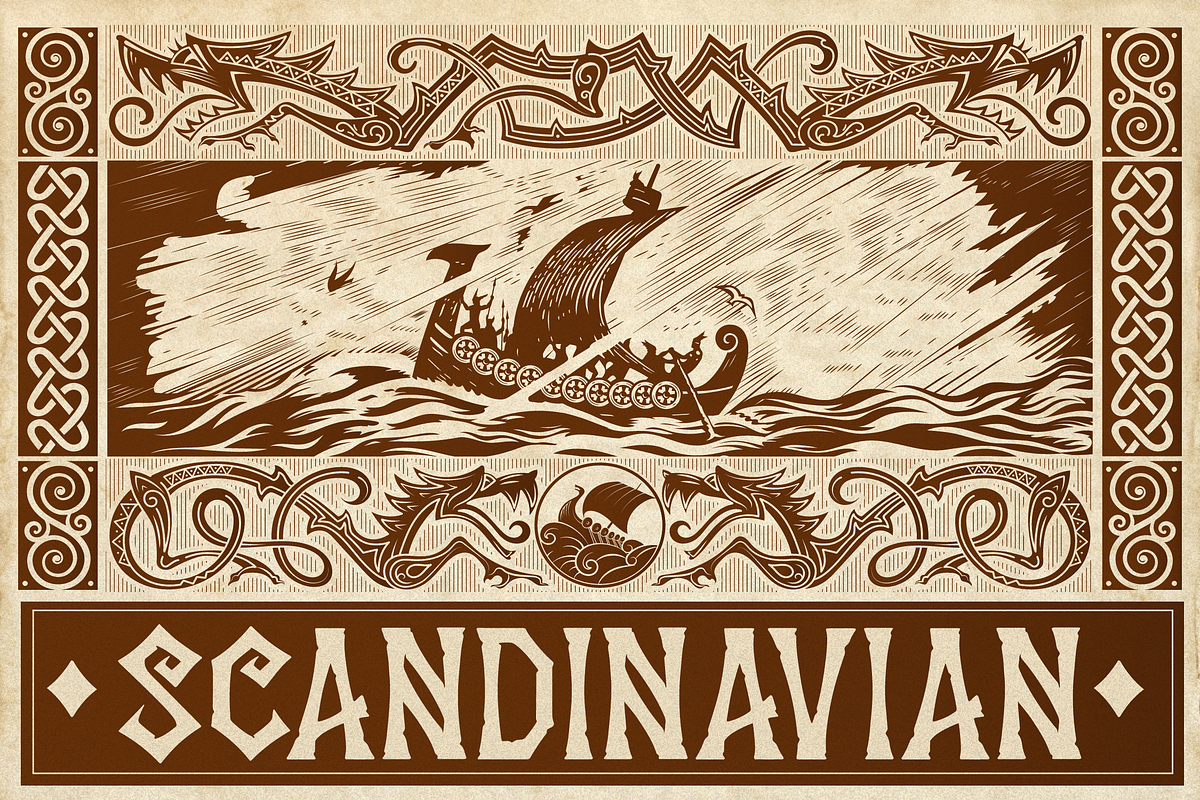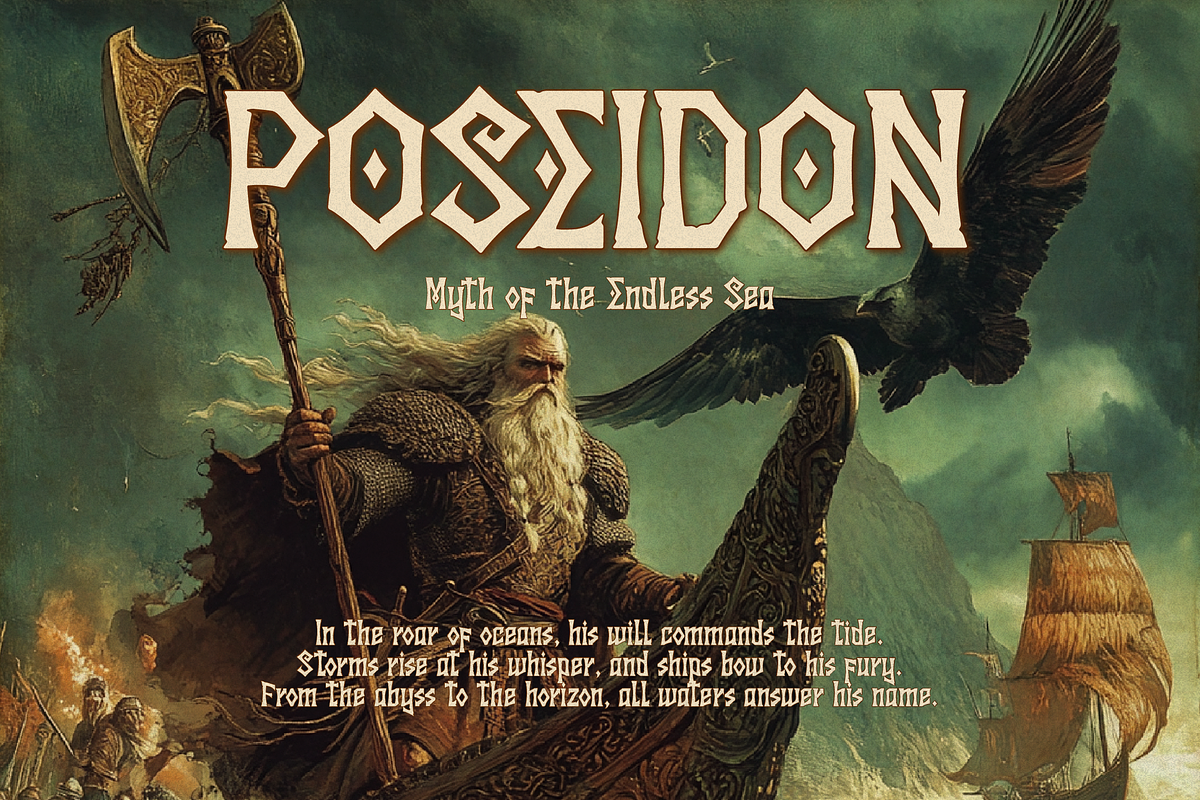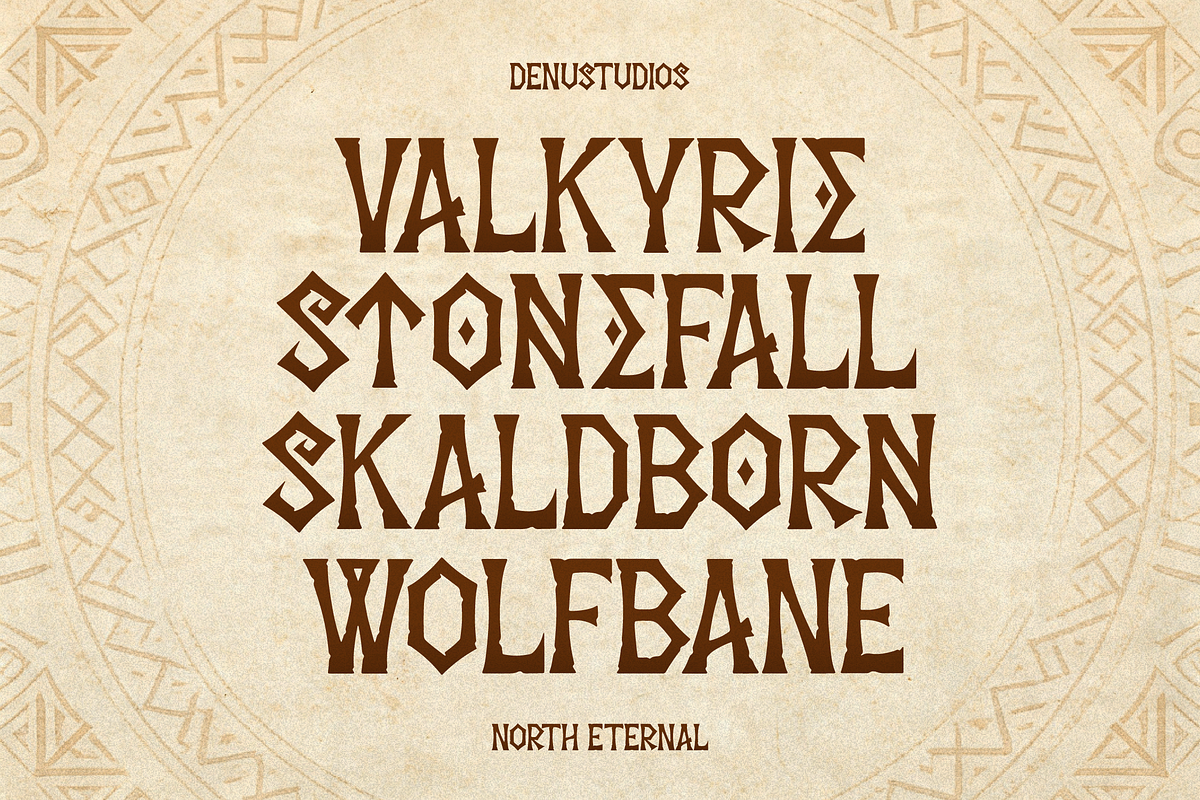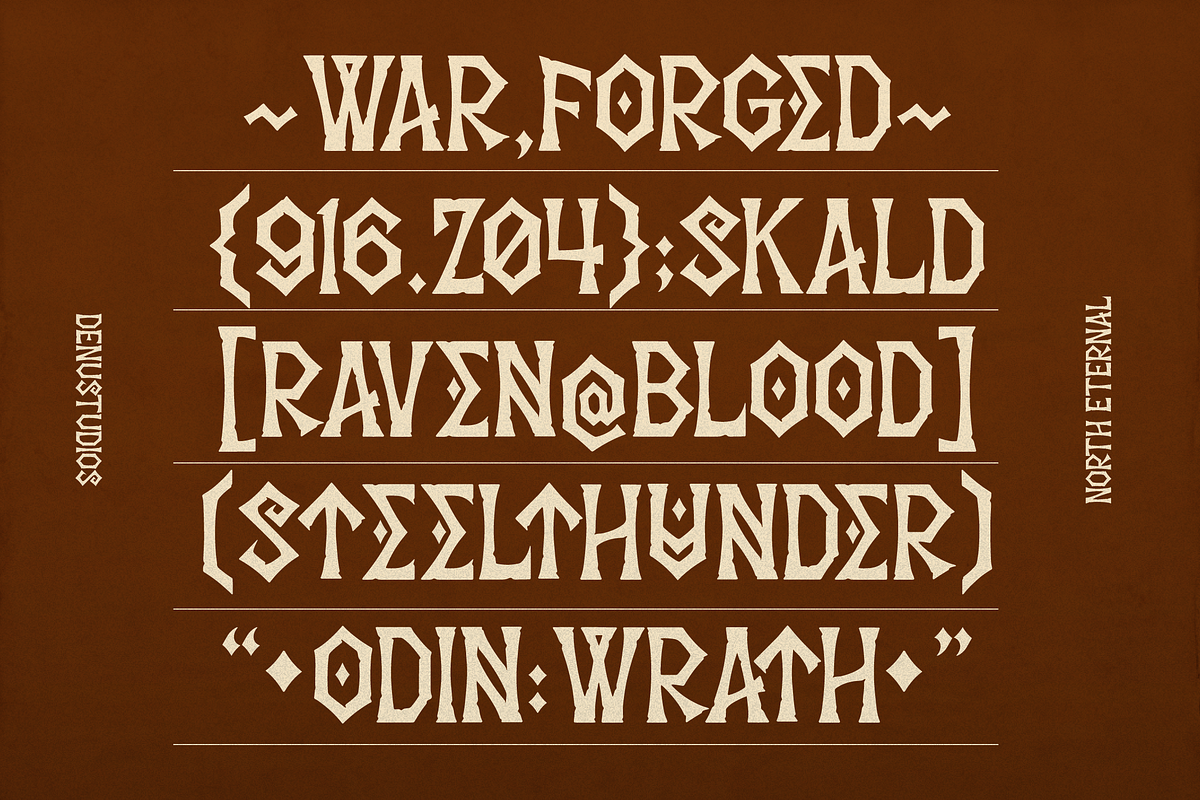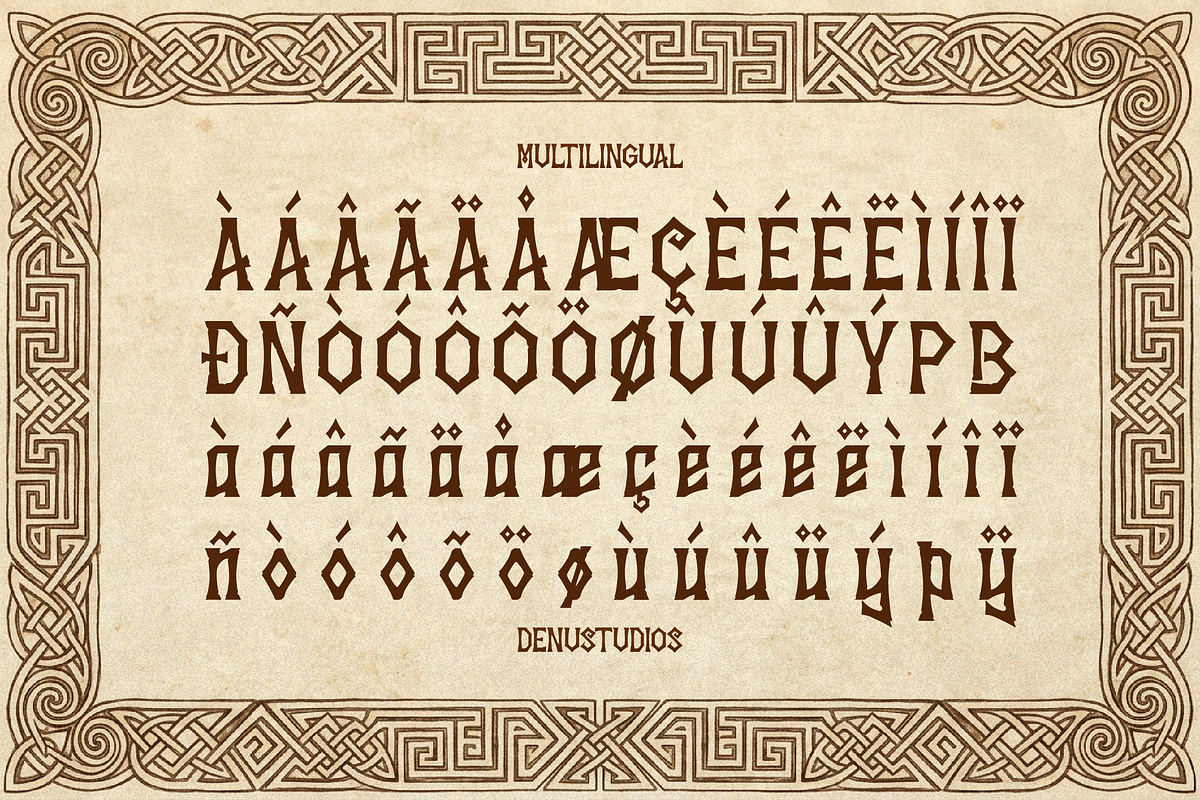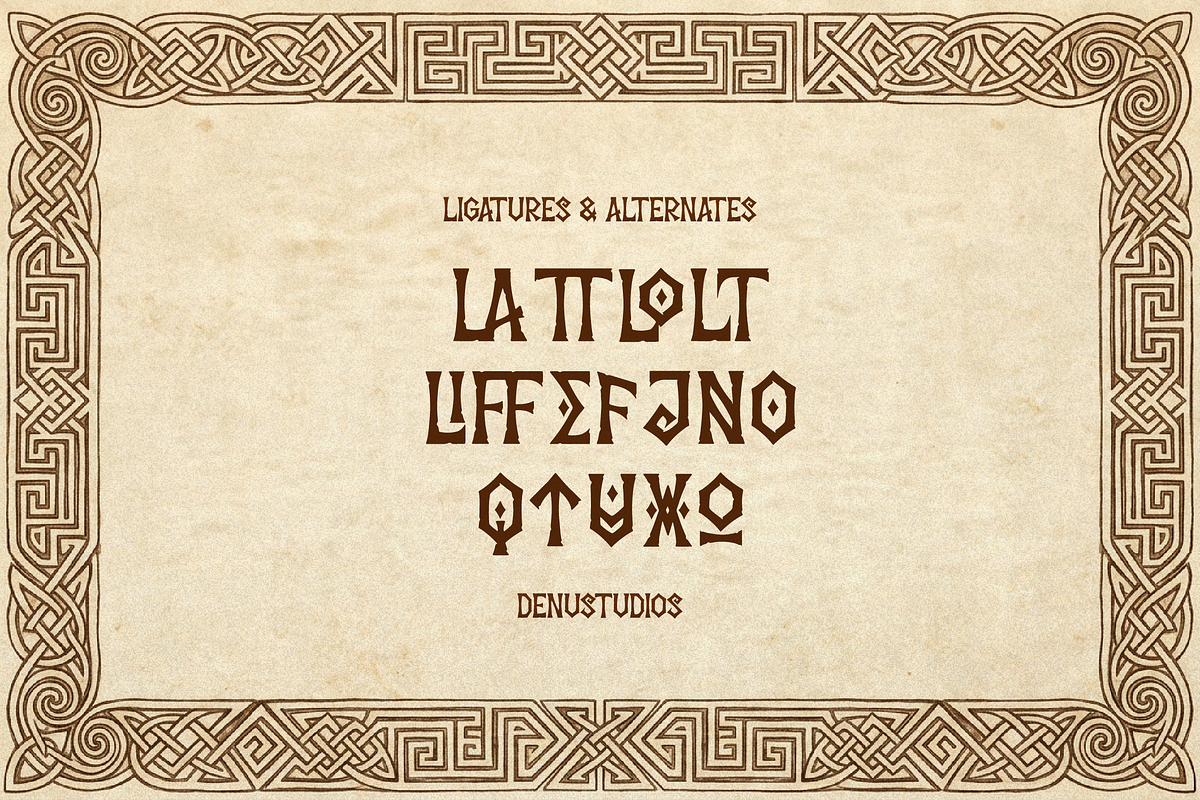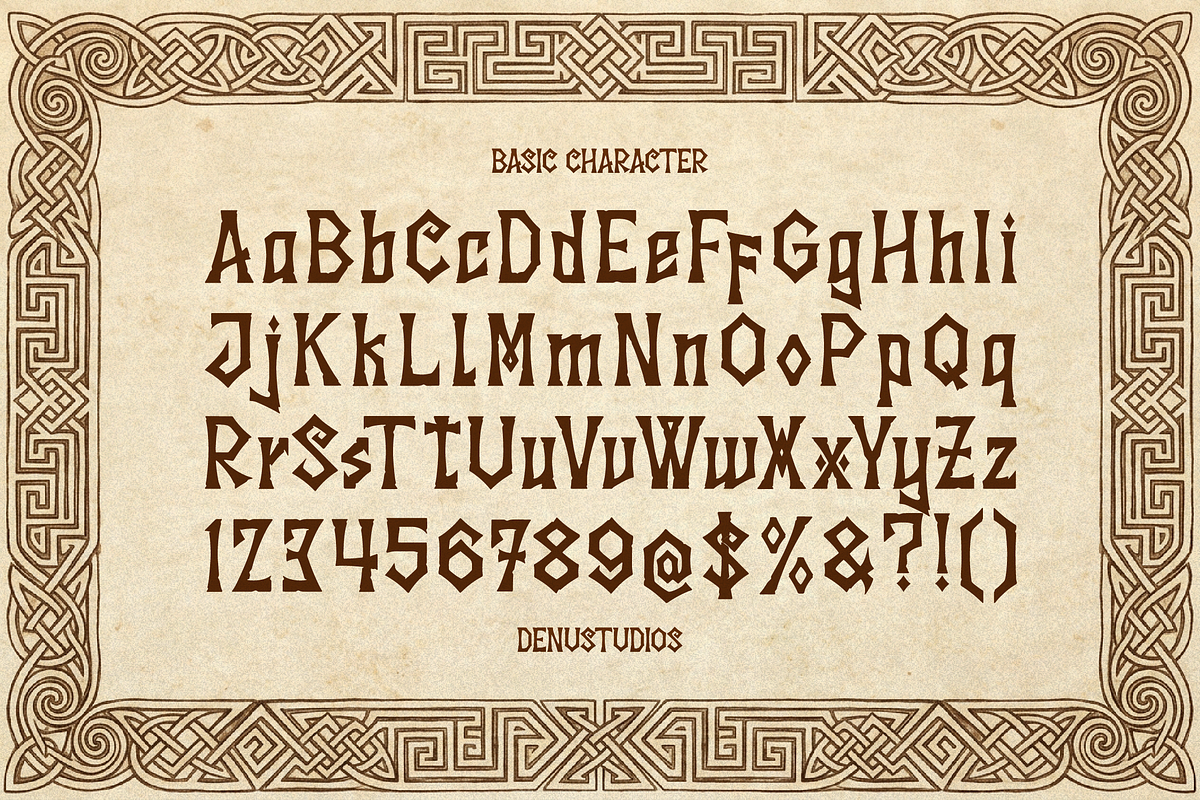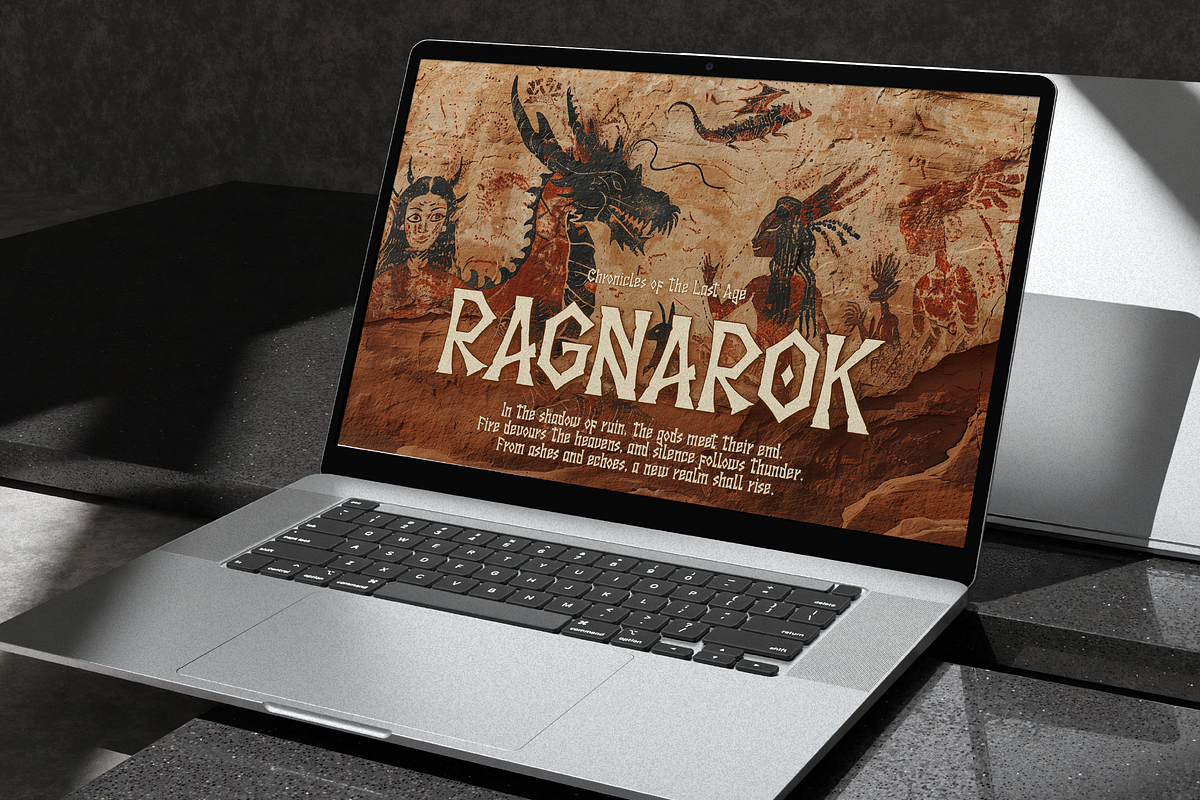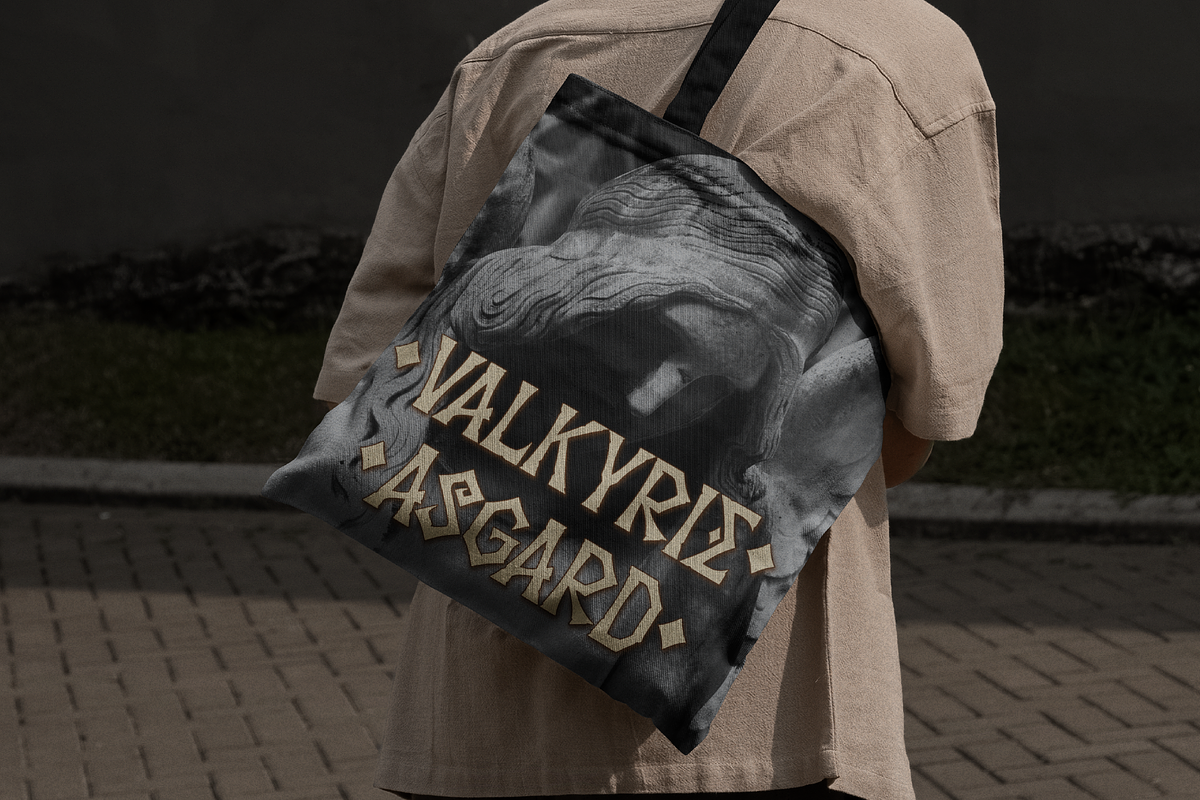
North Eternal | Runic Display Font
**North Eternal | Runic Display Font, from Denustudios, suitable for any projects such as: logos, branding projects, homeware designs, product packaging, mugs, quotes, posters, shopping bags, t-shirts, book covers, name card, invitation cards, greeting cards, label, photography, watermark, special events, and all your other lovely projects that need a Runic **taste.
Standard glyphs
Alternate and Ligature
Fonts include multilingual support